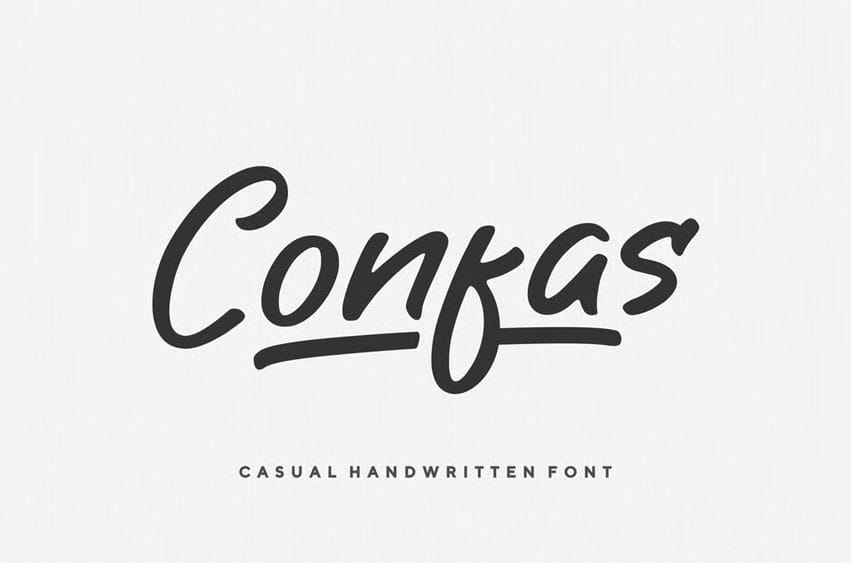
Confas Font is a clean and modern handwritten font that blends simplicity, confidence, and style. Designed with smooth, casual strokes, this typeface brings a friendly and approachable character to any design. Its balanced structure and subtle handwritten flow make it perfect for branding, product packaging, social media, and inspirational quotes.
Whether you’re designing a minimalist logo, a fashion tagline, or stylish text layouts, Confas adds a natural personal touch without losing readability. The font includes uppercase, lowercase, numerals, punctuation, and multilingual support. Available in OTF, TTF, and WOFF formats, Confas is ready for both digital and print use — making it an ideal choice for designers who love simplicity that speaks elegance.